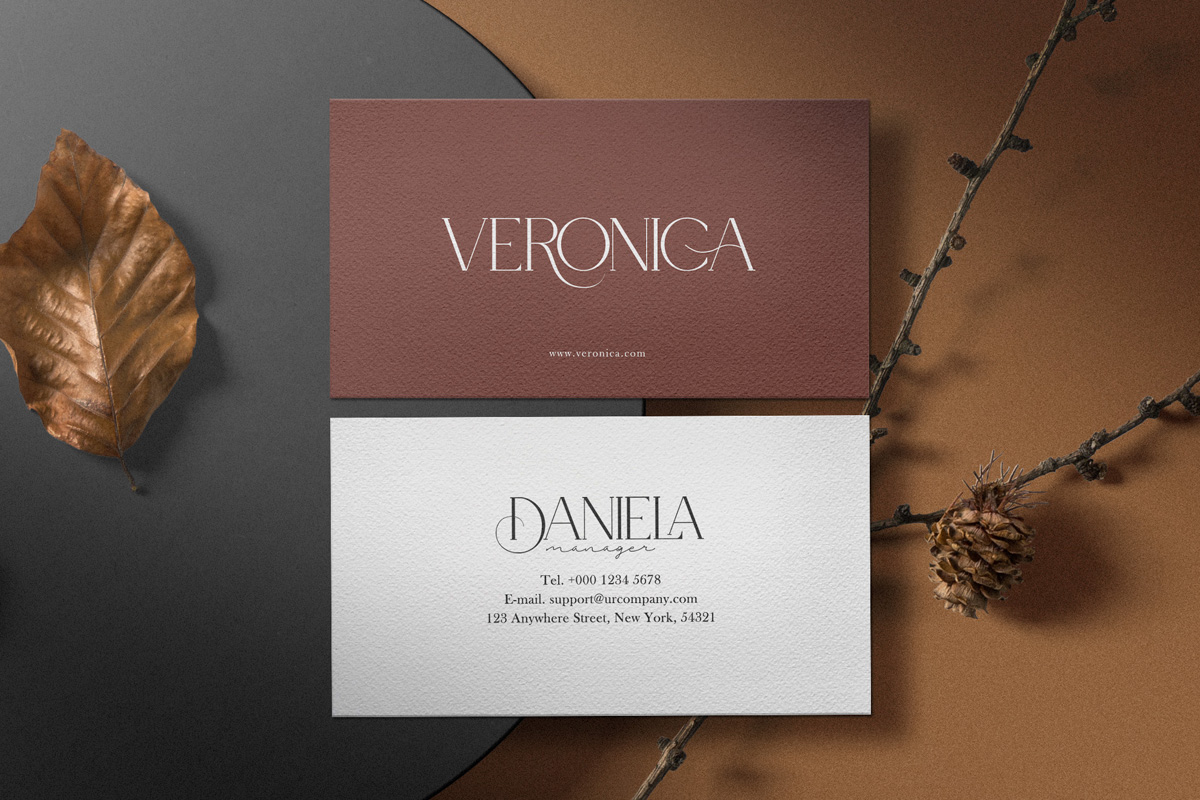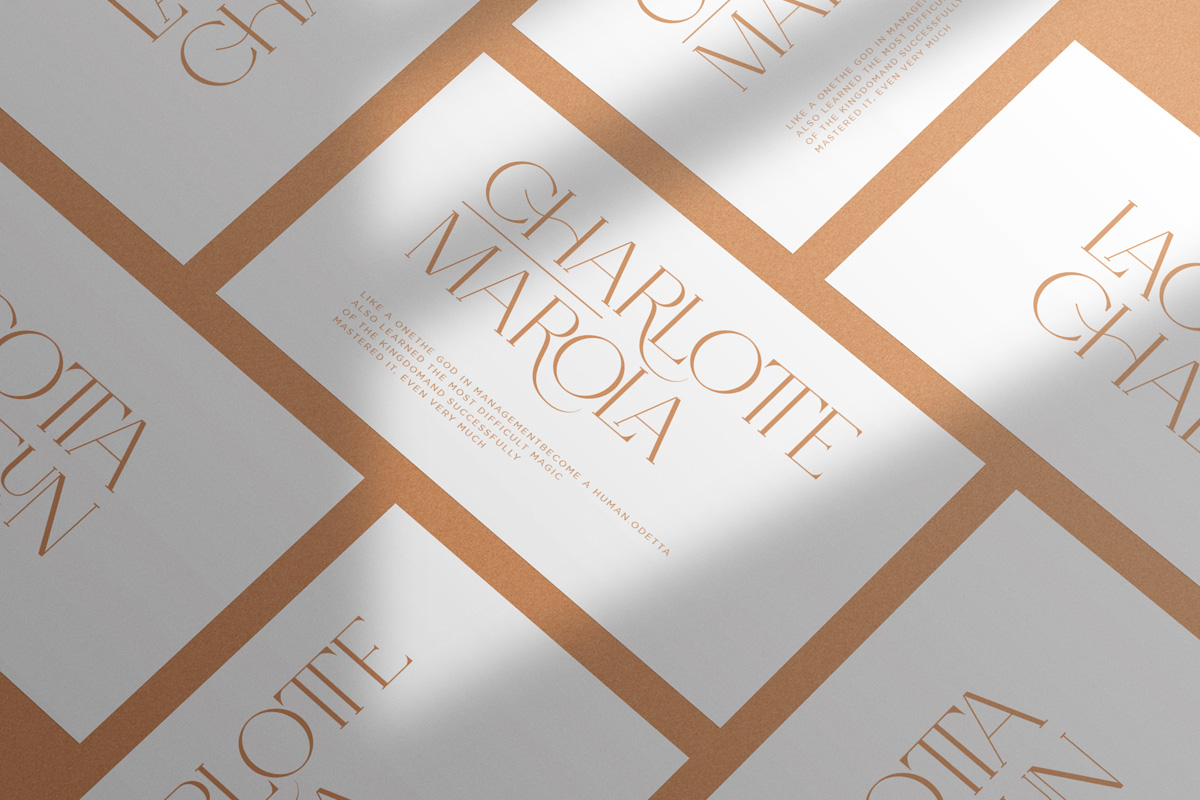
Carlly Font
Carlly Serif Font Is A Classic Serif Fonts Inspired By Modern and Ligature Characters. Specially designed for fashion-themed projects, perfectly suitable for creating elegant, chic, lifestyle design such as logos, title, and magazine, and more.